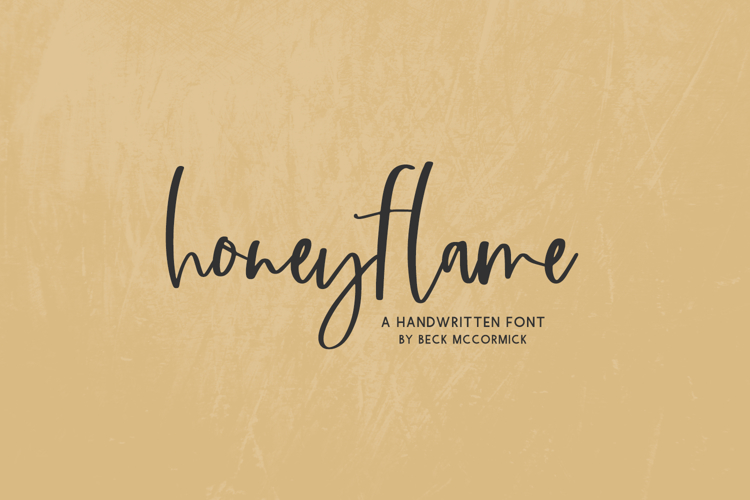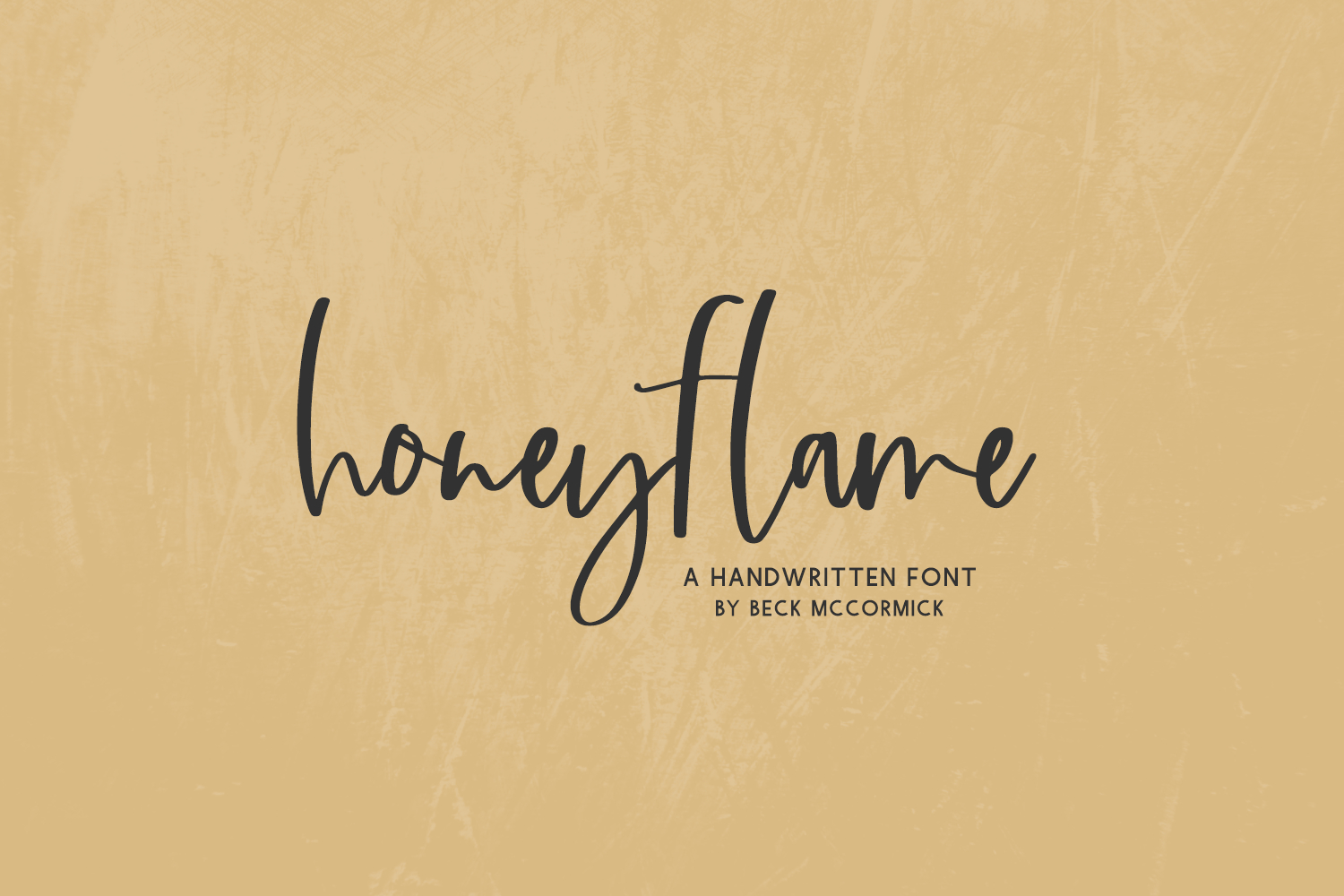
Introducing Honeyflame, a modern handwriting font script.
Honeyflame is best for:
- wedding invitations, wedding favors, or wedding decor
- farmhouse decor and crafts
- digital planners & apps like Goodnotes
- website design + website accents, blog design
- feminine graphic tee shirt design & other apparel